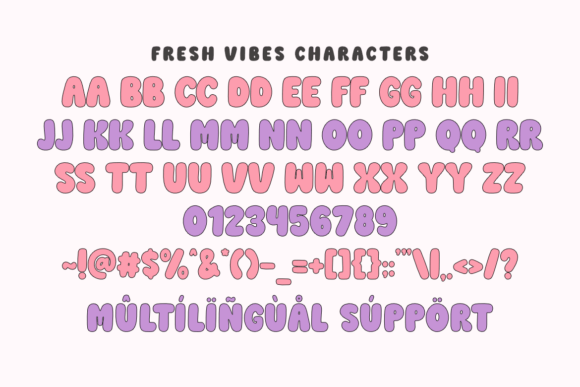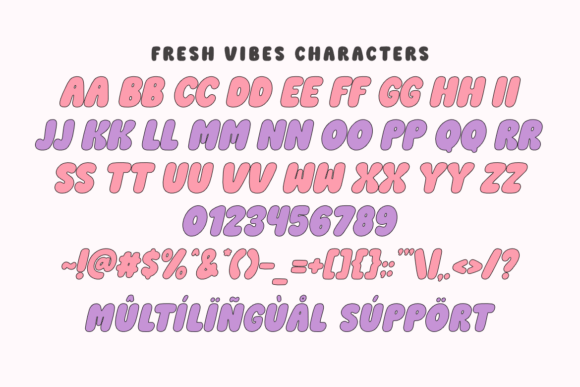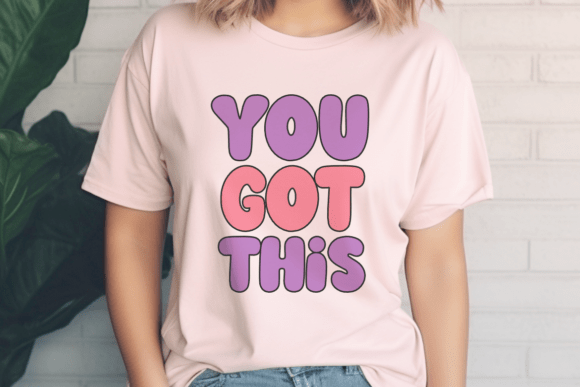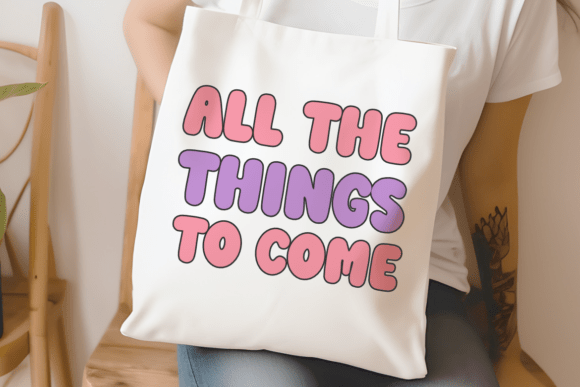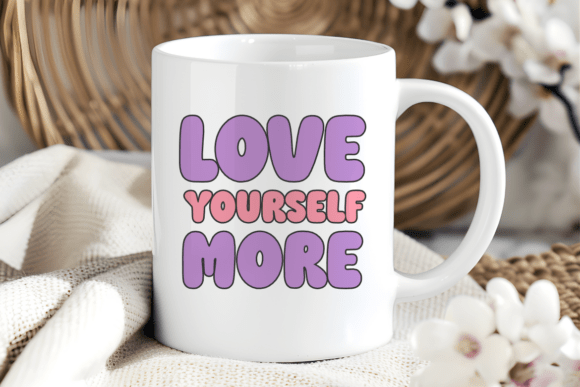
Unlock Your Creativity with Fresh Vibes Font
Have you ever stared at a blank page, feeling like your ideas are stuck in a creative rut? We’ve all been there. Sometimes, all it takes is a spark to get those creative juices flowing. For designers, that spark can come in the form of a new font – one that’s both fun and versatile. Enter Fresh Vibes Font, a charming and playful bubble display font that’s sure to add a dash of whimsy to your designs.
Whether you’re working on a poster, social media graphic, or branding project, Fresh Vibes Font is the perfect tool to help you bring your ideas to life. Its soft curves and bold appearance make it a standout choice for eye-catching headlines and graphics. With Fresh Vibes Font, you can add a dreamy touch to your designs and make them truly unforgettable.
Fresh Vibes Font Key Features
- Font Family: Fresh Vibes Font is a unique, hand-drawn sans-serif typeface designed to evoke a carefree and youthful feel.
- Size: The font family includes 6 styles: Thin, Light, Regular, Medium, Bold, and Black, each with its own distinct character.
- Characteristics: Features a unique blend of geometric and organic elements, giving it a modern and playful feel.
Designer Review: Fresh Vibes Font
Overall, I have mixed feelings about the Fresh Vibes Font. ✨ On one hand, I love the font’s unique, laid-back vibe, which makes it perfect for creative projects, especially those related to music, art, or wellness. The font is playful, yet sophisticated, and the rounded edges give it a friendly feel.
- The font’s versatility is a major plus. It works well in various contexts, from headings to body text, and even as a title font.
- The font’s customizability is also impressive. You can easily adjust the size, color, and spacing to fit your design needs.
- The font’s ligatures and kerning are well-designed, which makes it look professional and polished.
However, there are some limitations to the Fresh Vibes Font. ⚠️ While the font is aesthetically pleasing, it may not be suitable for formal or corporate projects, as it may come across as too casual.
Additionally, the font’s readability may be affected by the use of certain colors or backgrounds, especially if the text is small or the contrast is low.
Overall, I would recommend the Fresh Vibes Font for creative projects that require a fun, laid-back vibe. However, it’s essential to consider the context and potential limitations before using it in your design.
Tips for Getting the Most Out of Fresh Vibes Font
To get the most out of Fresh Vibes Font, use it for:
- Displaying headings and titles
- Creating eye-catching quotes and slogans
- Adding a modern touch to your branding and marketing materials
Fresh Vibes Font is commonly used for:
- Social media graphics
- Blog posts and articles
Alternatives to Fresh Vibes Font
Great Vibes Font is a modern script font that is perfect for creative and artistic projects. It features elegant, flowing letters that are great for headings and titles. When to use: For projects that require a touch of elegance and sophistication, such as wedding invitations, fashion magazines, and luxury brand designs. Comparison to Fresh Vibes Font: Great Vibes Font has a more refined and sophisticated look compared to Fresh Vibes Font, which is more playful and casual.
Carolyna Pro Font is a stylish and elegant script font that is ideal for luxury brands, fashion, and high-end designs. It features beautiful, flowing letters with a touch of sophistication. When to use: For projects that require a sense of luxury and high-end style, such as fashion brands, luxury hotels, and high-end product designs. Comparison to Fresh Vibes Font: Carolyna Pro Font has a more formal and sophisticated look compared to Fresh Vibes Font, which is more playful and casual.